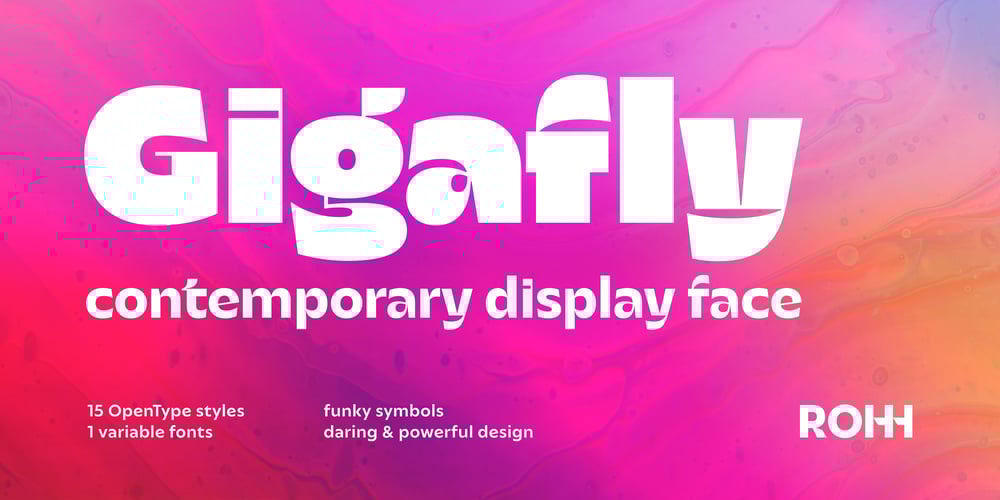
Gigafly Font Family was designed by Roch Modrzejewski and published by ROHH. Gigafly contains 16 styles and family package options. Attention! Are you ready for some daring fonts with a side of attitude? If your answer is anywhere around „YES YES, PLEASE, YES!”— then hope you’re sitting down for this one, as Gigafly is here to ruffle feathers. It’s bold, eccentric, and loud—designed for those who think blending in is overrated.This family boasts a sharp design language brimming with strength, energy, and dynamism. When size matters—think billboards, posters, banners—Gigafly delivers. Its alternate letterforms offer versatility, allowing you to effortlessly switch between vibrant, collage-like creations and powerful, clean-cut designs. A set of cheeky icons and stylish manicules slips in some offbeat charm.Designed for branding that turn heads and headlines that raise eyebrows, Gigafly is here to crash the party! Key Features• 15 crazy styles• variable font• 3 optical sizes• tons of alternates• funky icons & manicules• over 1400 vibrant glyphs• Extended Latin language support